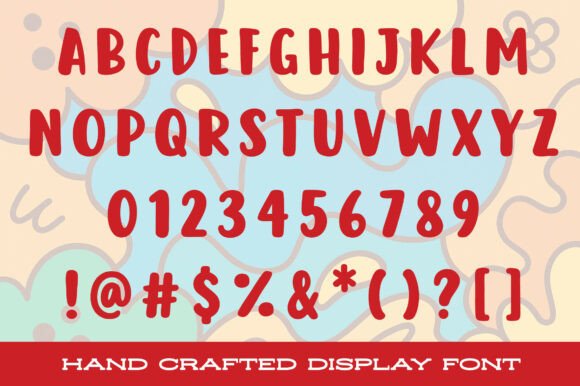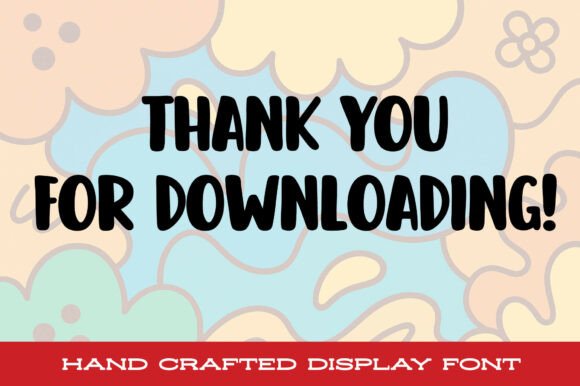
Discovering the Joy of Plonko Font
Have you ever been stuck on a creative project, trying to find the perfect font to bring your design to life? We’ve all been there. For designers, the search for that special typeface can be a frustrating but crucial part of the process. That’s why we’re excited to introduce you to the Plonko Font, a game-changing design resource that’s sure to put a smile on your face.
With its bold, bubbly, and hand-drawn style, Plonko Font is the perfect choice for any project that needs a fun, approachable vibe. From logos and kids’ products to snacks and packaging, this high-quality font is designed to make your designs stand out. And the best part? It’s available for a free download, complete with transparent backgrounds and a wide range of characters to choose from.
Whether you’re a seasoned designer or just starting out, the Plonko Font is a valuable addition to any creative project. Its unique style and high-quality design make it a standout choice for anyone looking to add a little extra personality to their work. So why wait? Dive in and discover the joy of Plonko Font for yourself.
Key Features of Plonko Font
- Unique, playful font style with a transparent background, perfect for adding a touch of whimsy to your designs.
- Comes in a single font size, making it easy to use in a variety of design contexts.
- Features a high resolution of 300 DPI, ensuring crisp and clear typography in both digital and print applications.
- Designed to be versatile, the Plonko Font can be used in a range of creative projects, from branding and advertising to digital art and craft designs.
Honest Review: Plonko Font
As a designer, I’m always on the lookout for high-quality design resources to elevate my creative projects. The Plonko Font is one such resource that caught my attention, and I’m excited to share my thoughts on it.
- ✨ The Plonko Font is incredibly versatile, making it suitable for a wide range of design applications, from branding to digital products.
- ✨ The transparent background option allows for seamless integration with various design elements.
- ⚠️ The font may not be as legible at smaller font sizes, which could impact readability.
- ⚠️ The font family is relatively small, so designers may need to get creative with layering or combining fonts to achieve the desired look.
Overall, the Plonko Font is a solid addition to any designer’s toolkit. While it may have its limitations, its high quality and versatility make it a great choice for designers looking to elevate their creative projects. I’d definitely recommend it as a design resource, especially for those working on a budget.
Tips for Getting the Most Out of the Plonko Font
For the best results, use the Plonko Font with a transparent background. This allows the font to blend seamlessly with your design. Experiment with different font sizes and colors to achieve the desired effect.
The Plonko Font is ideal for various design projects, including logos, social media graphics, and marketing materials. Its high-quality design and free download make it an excellent choice for creative professionals and hobbyists alike.